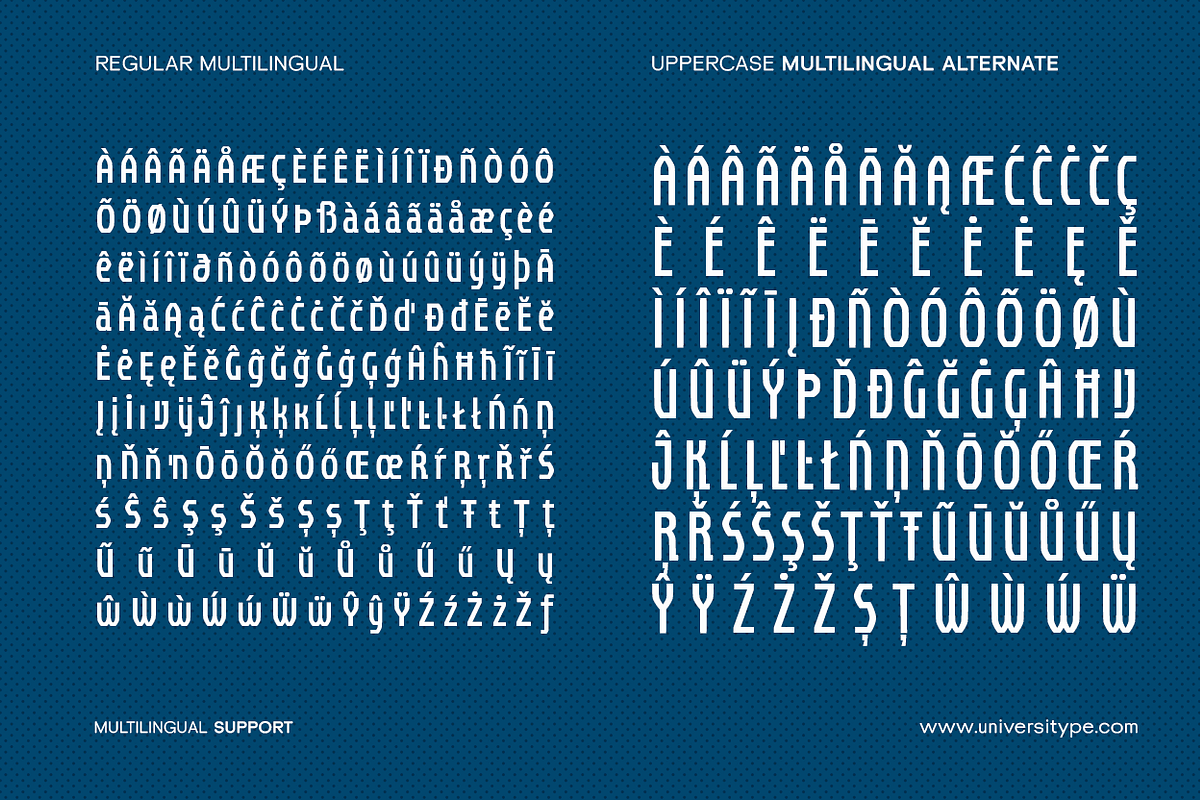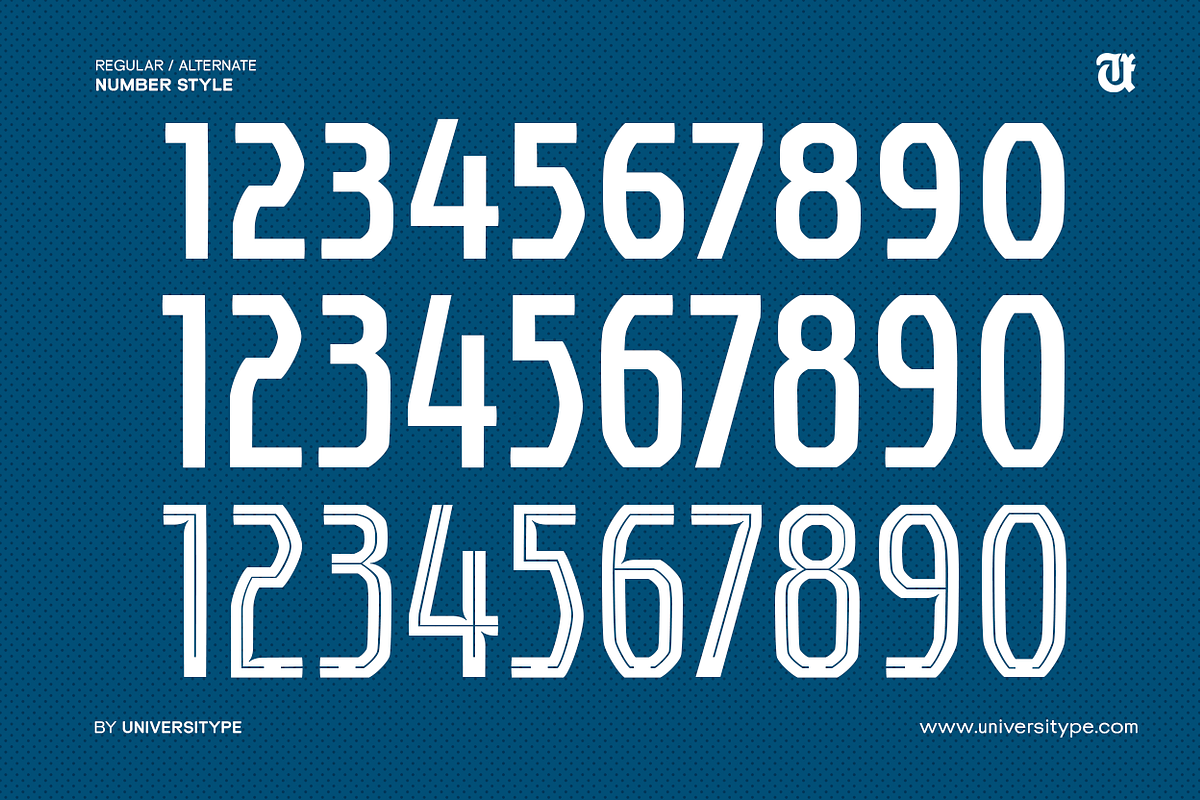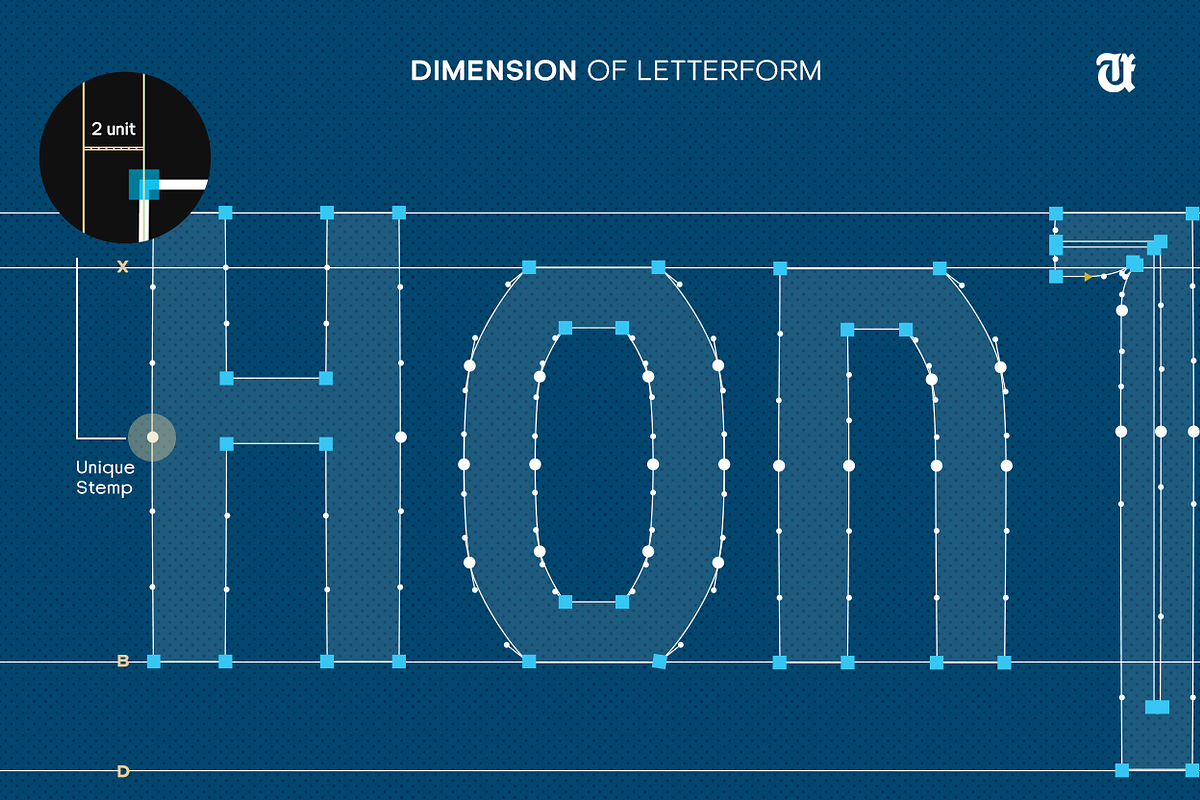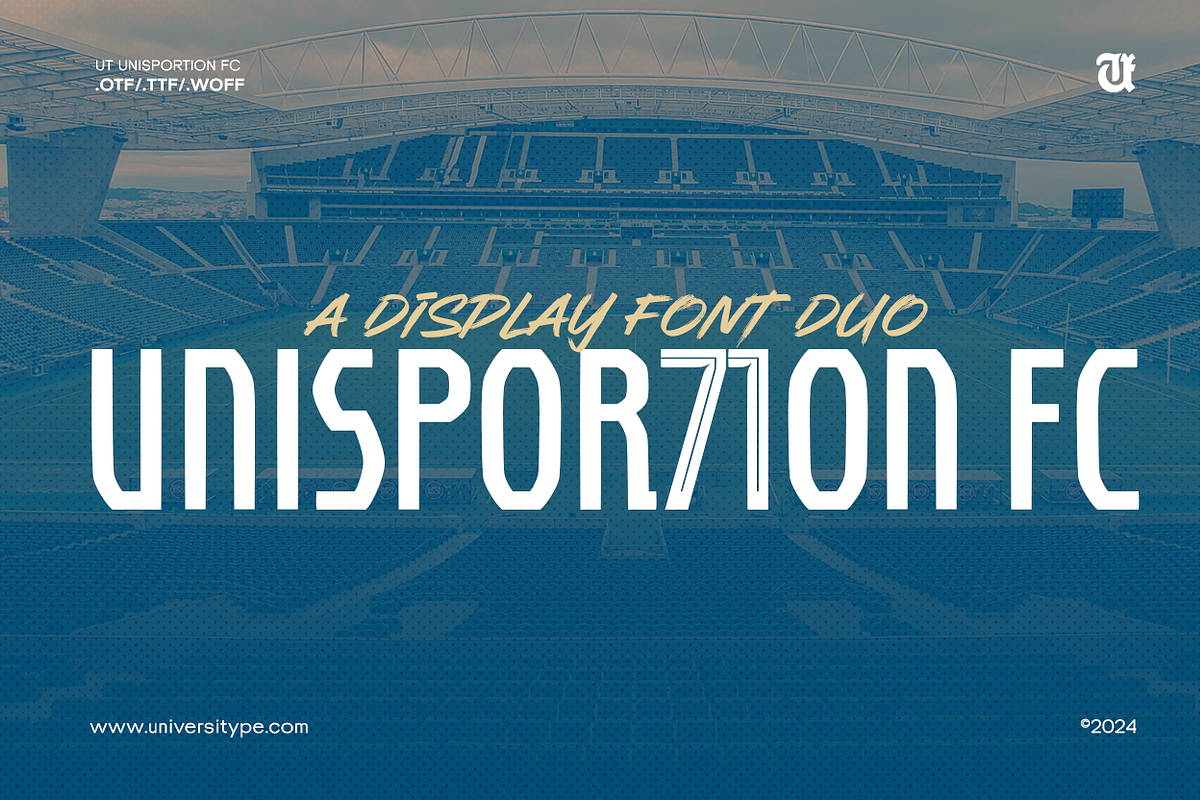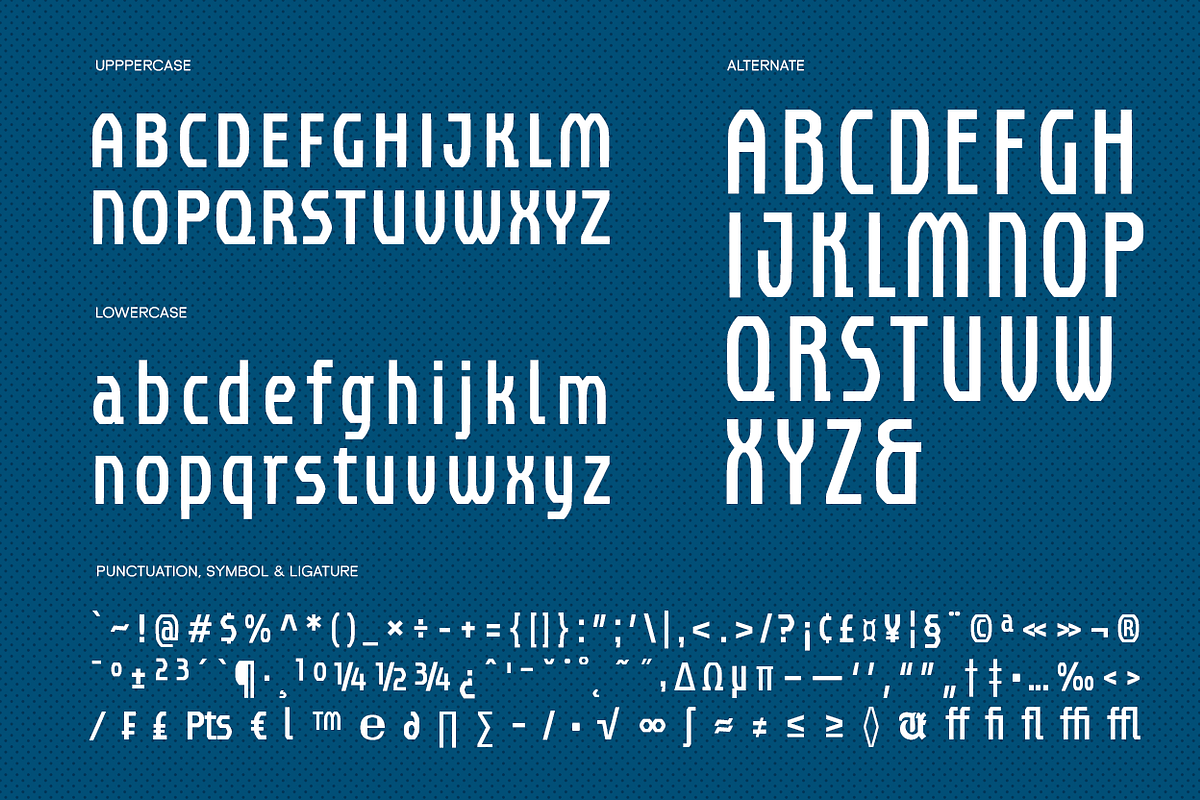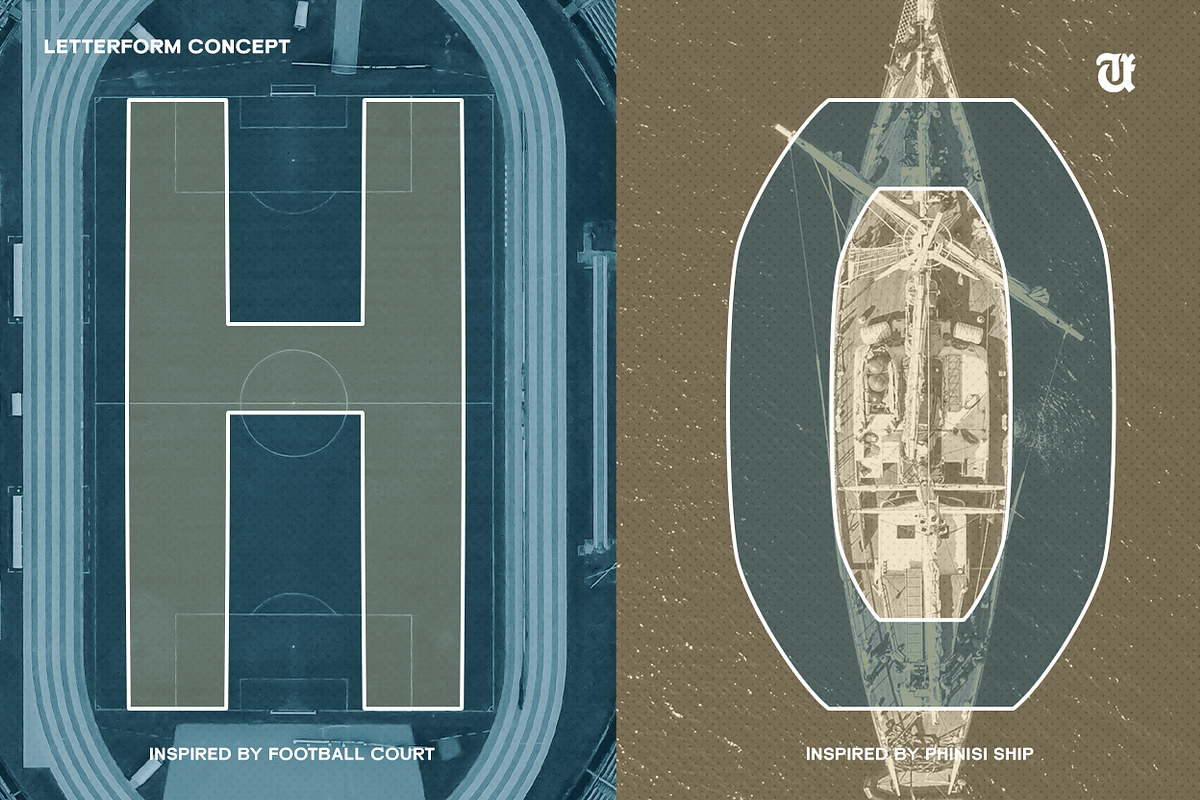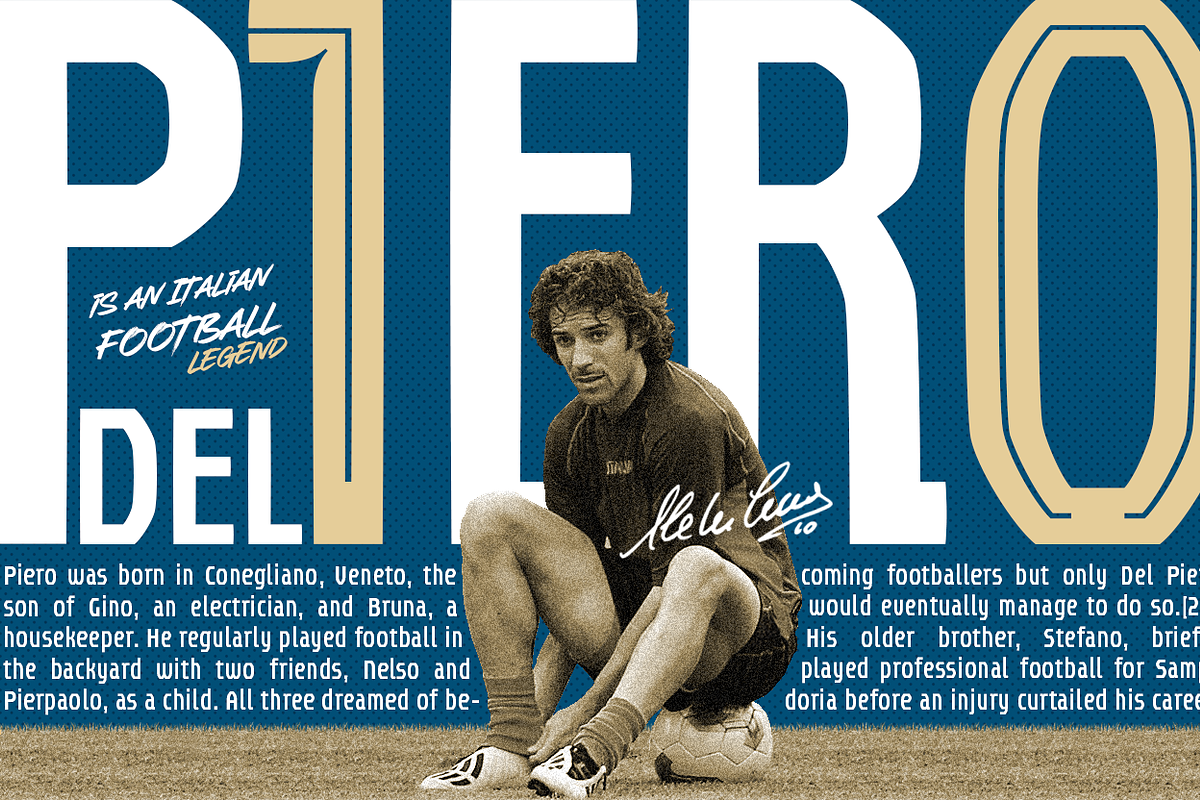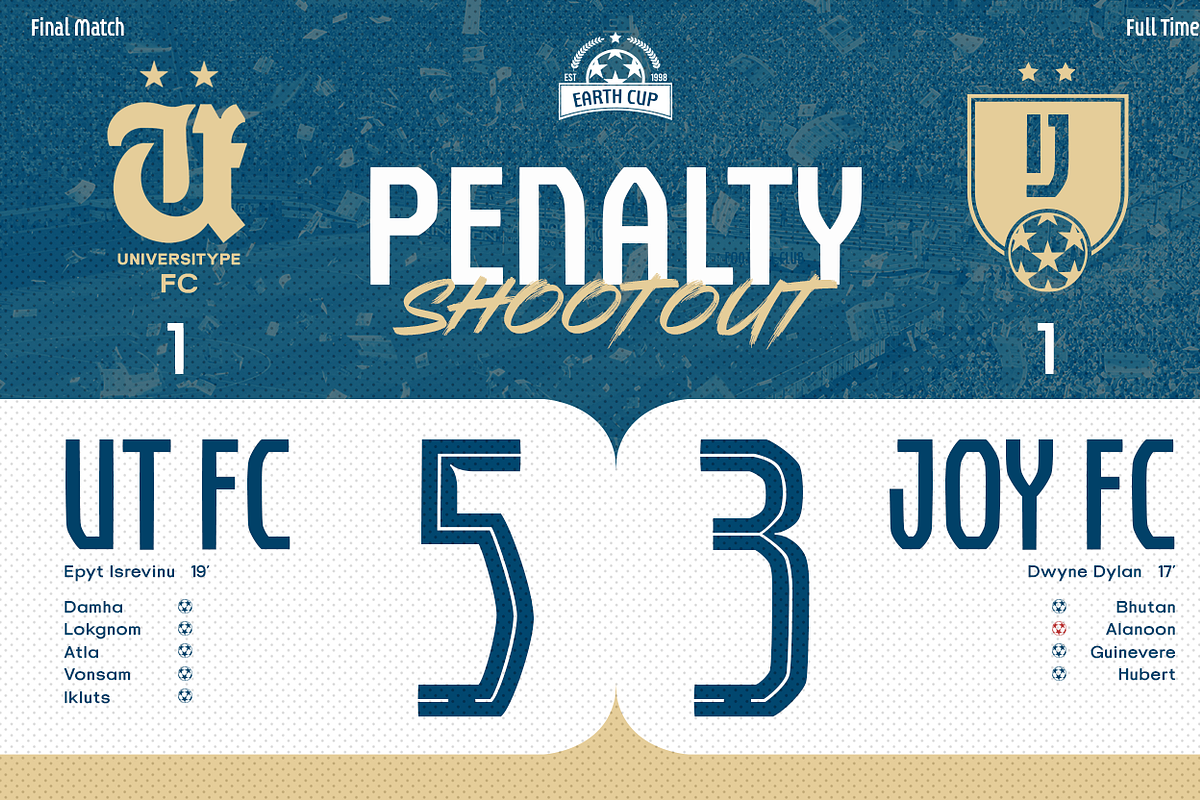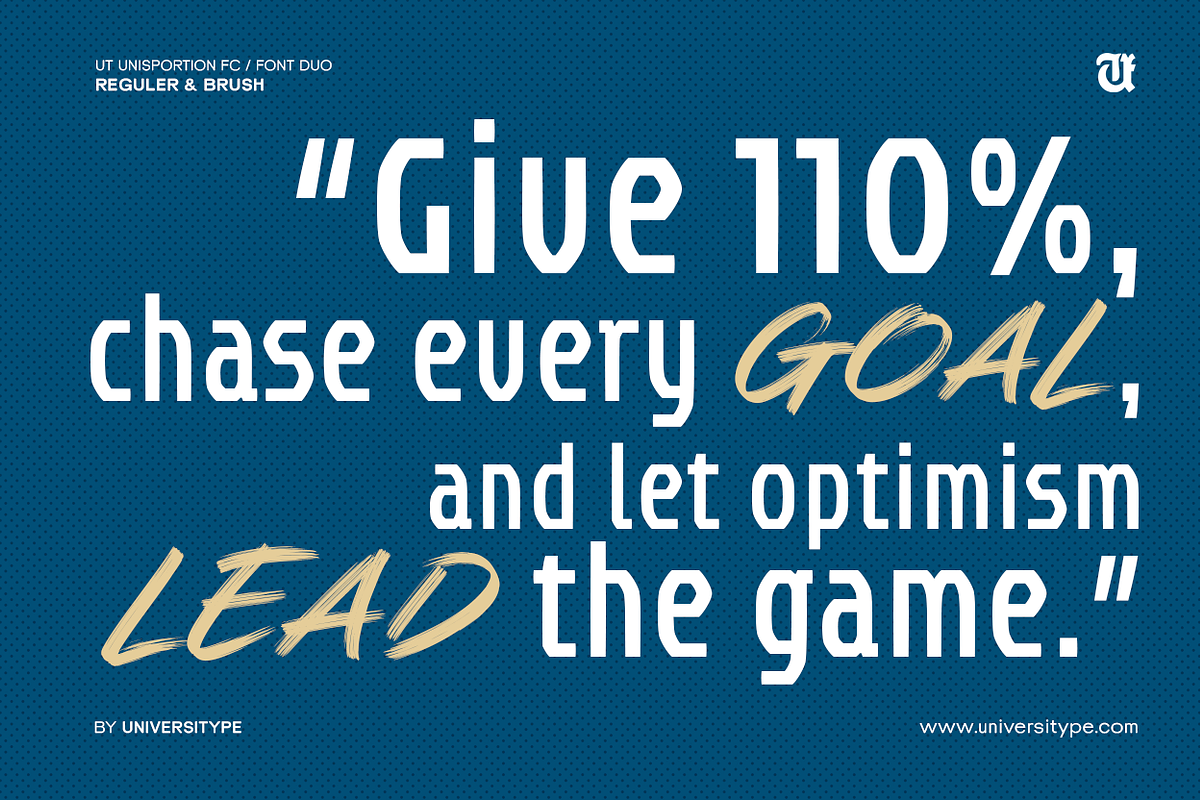
UT Unisportion FC Font Duo
Representing the throbbing pulse of sports culture, UT Unisportion FC is a dashing font duo that packs a punch. Its captivating appeal lies in the fusion of dynamic athleticism and the classical elegance inherent in Buginese maritime architecture. The amalgamation births two distinct styles - the stalwart UT Unisportion FC Regular and the lively UT Unisportion FC Brush. These styles offer a unique visual vernacular, leaving an indelible print on every design they grace. A versatile font perfect for the designers and brands seeking personality ingrained in versatility, UT Unisportion FC provides a compelling edge to any project.
Boasting a dual style, the font simplifies ease of reading with a crisp, structured Regular type and injects vivacity and expressiveness with a rough Brush. An extensive OpenType feature set ensures customizability, while its versatility ensures stunning visual display in both digital and print environments. Created with purposeful precision in strokes and excellent kerning, the font ensures legibility at every scale.
Inspired by Buginese maritime heritage, UT Unisportion FC Font Duo traces its roots to the iconic Pinisi Boat, incorporating its intricate design language and superior craftsmanship. The ornate wood carvings that define the UT Unisportion FC Regular style pay an homage to the traditional design aesthetic of Buginese artisans, weaving authenticity into sophistication for the modern-day audience. UT Unisportion FC Brush mirrors the fluid, dynamic silhouette of a sail-billowed Pinisi snagging the breeze, instilling your design projects with an infusion of humanity and emotional depth, akin to weather-worn maritime signage or captain logs.
The anatomy of UT Unisportion FC marries architectural purity with nautical grace. The foundational characters 'H', 'O', and 'N' echo the clear geometry of a sports stadium, while the wider letter structures are generous nods to the front and back decks of the Pinisi boat. The font narrates a story of balanced intensity, where every curve and point resonates the elegant robustness of the Pinisi ship, thereby crafting a harmonious blend of dynamism and balance. Each character thus carries a sense of purpose, orchestrating an aesthetic movement across the canvas.